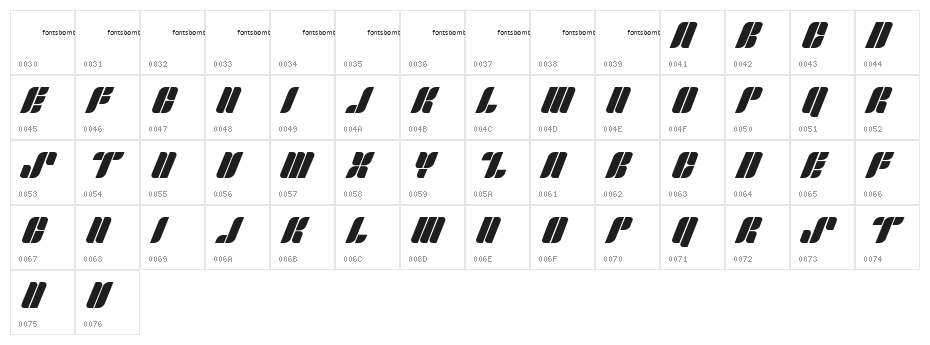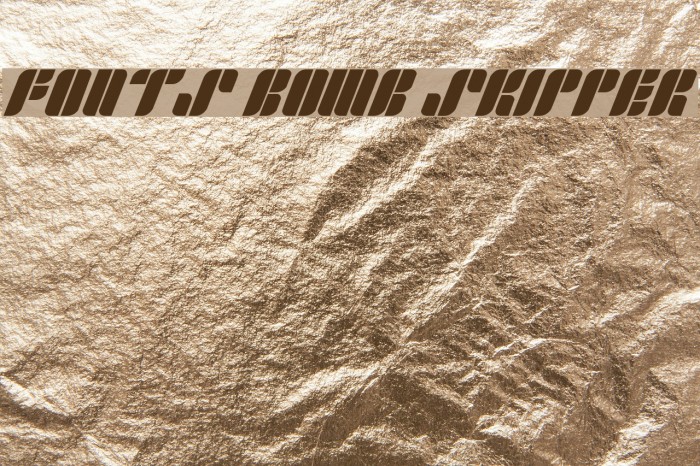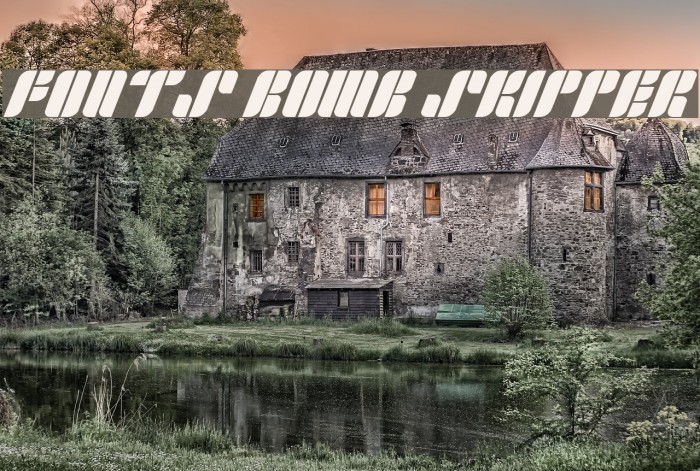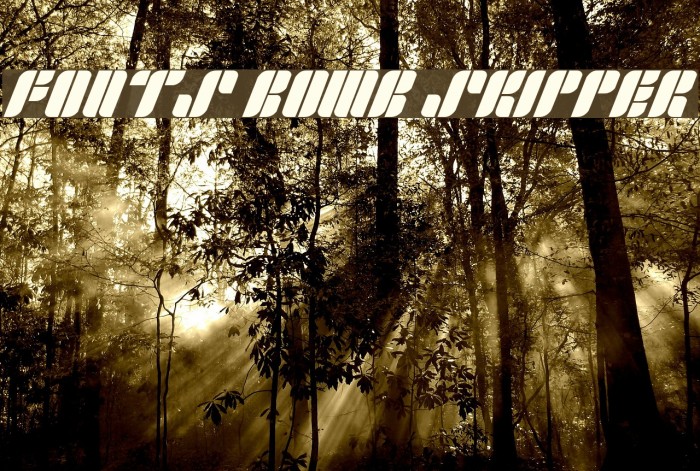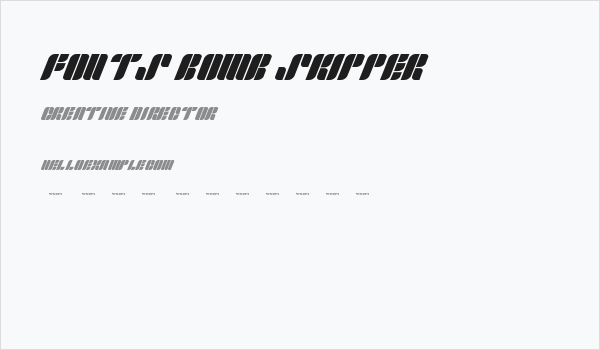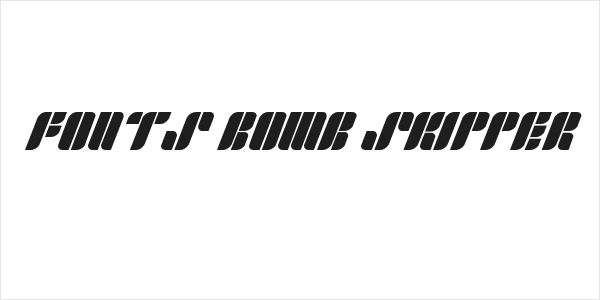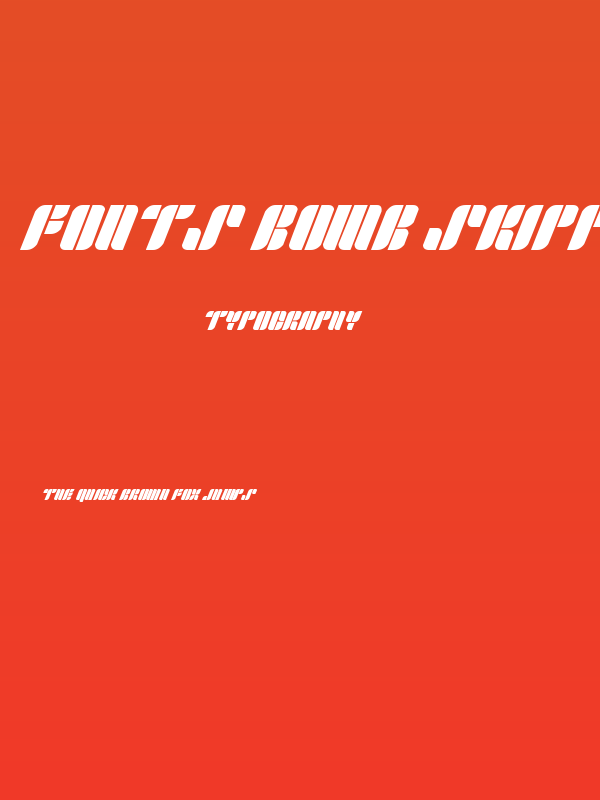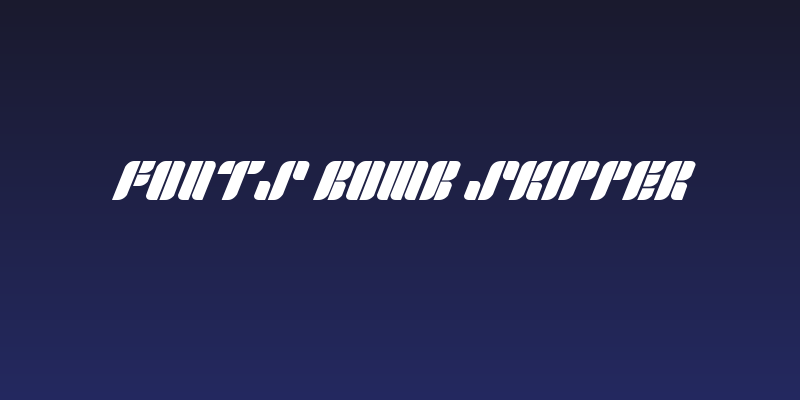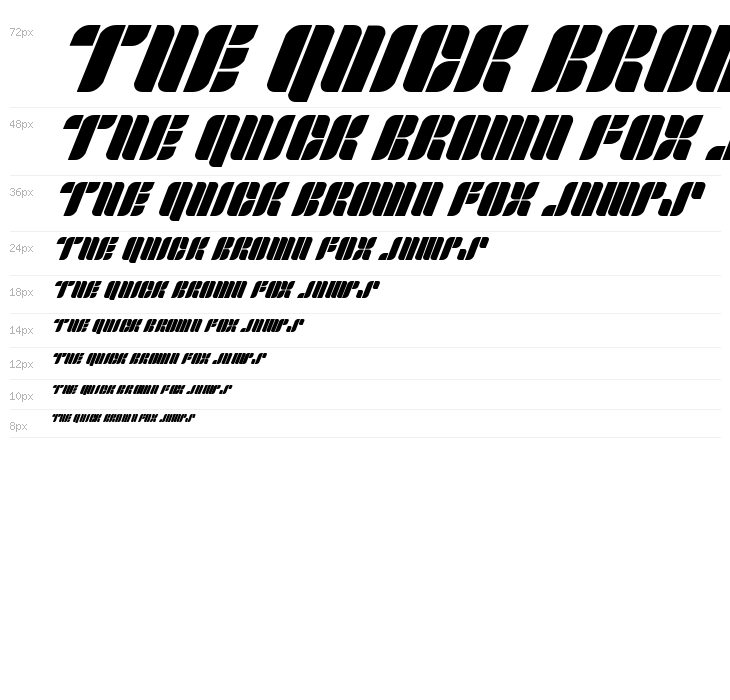
Fonts Bomb Skipper Font
Fonts Bomb Skipper Description
This font features bold, geometric letterforms with a distinct slant, creating a dynamic and modern appearance. The characters are constructed with thick, uniform strokes, giving them a strong presence. The angular design and consistent weight across all characters contribute to a cohesive and impactful look. The font's style is reminiscent of futuristic or sci-fi themes, making it suitable for projects that require a bold and eye-catching typeface. The spacing between characters is tight, enhancing the compact and powerful feel of the text.
| Proposed Projects | Ideal for branding, posters, album covers, and any project needing a modern, impactful typeface. |